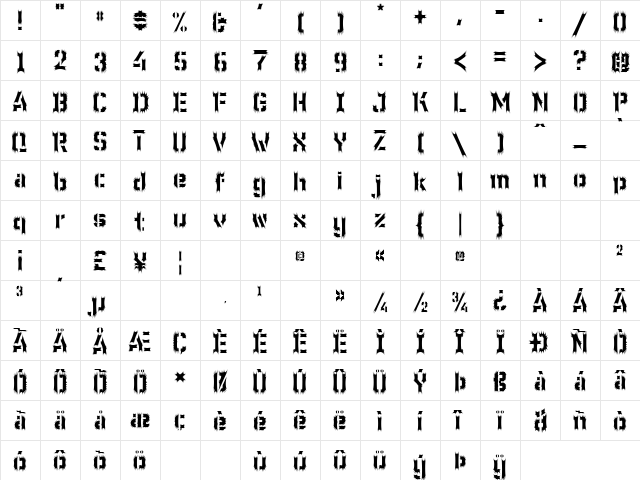
WC Wunderbach Wimpern DemiBold Free Font
WC Wunderbach Wimpern DemiBold
Foundry: WC Fonts
Designer: WC Fonts
Design Context for WC Wunderbach Wimpern
WC Wunderbach Wimpern is a composed and adaptable typeface that performs quietly and consistently across a wide range of design contexts. Its bold stroke weight gives it real presence on the page.